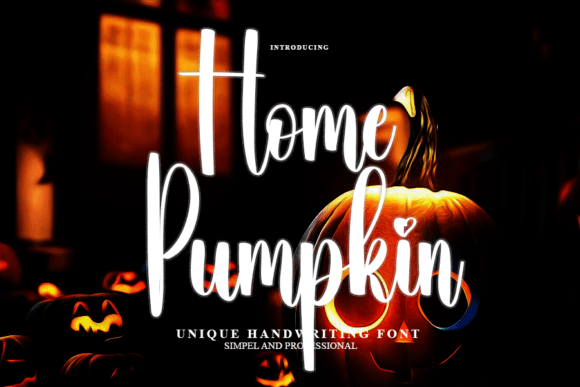
Journey into the enchanting world of Home Pumpkin Font, a delicate handwritten font that will captivate your senses and ignite your creativity. As you explore this exquisite collection, you'll discover a treasure trove of characters that dance and flow with an effortless grace. Each stroke, meticulously crafted by the talented artists at Ade Studio, carries the weight of artistry and the promise of boundless possibilities.
With Home Pumpkin Font, you unlock the key to crafting personalized masterpieces that resonate with warmth and charm. Whether you're penning heartfelt letters, designing eye-catching invitations, or creating visually stunning food packaging, this font will elevate your designs to new heights. Picture your words gracefully adorning elegant stationery, adding a touch of sophistication to your correspondence, or becoming the focal point of captivating branding materials that leave a lasting impression.
The versatility of Home Pumpkin Font is truly remarkable. It seamlessly blends the charm of handwritten lettering with the crisp precision of digital design, making it the perfect choice for a wide range of applications. Whether you're crafting logos that exude timeless elegance or designing captivating social media graphics that demand attention, this font will effortlessly adapt to your creative vision.
But what truly sets Home Pumpkin Font apart is its ability to evoke emotion and establish a personal connection with your audience. Its delicate strokes and graceful curves convey a sense of intimacy and warmth, inviting viewers to engage with your content on a deeper level. Whether you're sharing heartfelt messages, promoting your products, or simply expressing yourself creatively, this font will amplify your message and leave a lasting impact.
So, embark on this creative journey with Home Pumpkin Font, and discover the boundless possibilities that await you. Let your imagination soar as you create enchanting designs that captivate and inspire. The world of typography awaits, and Home Pumpkin Font is your passport to greatness.